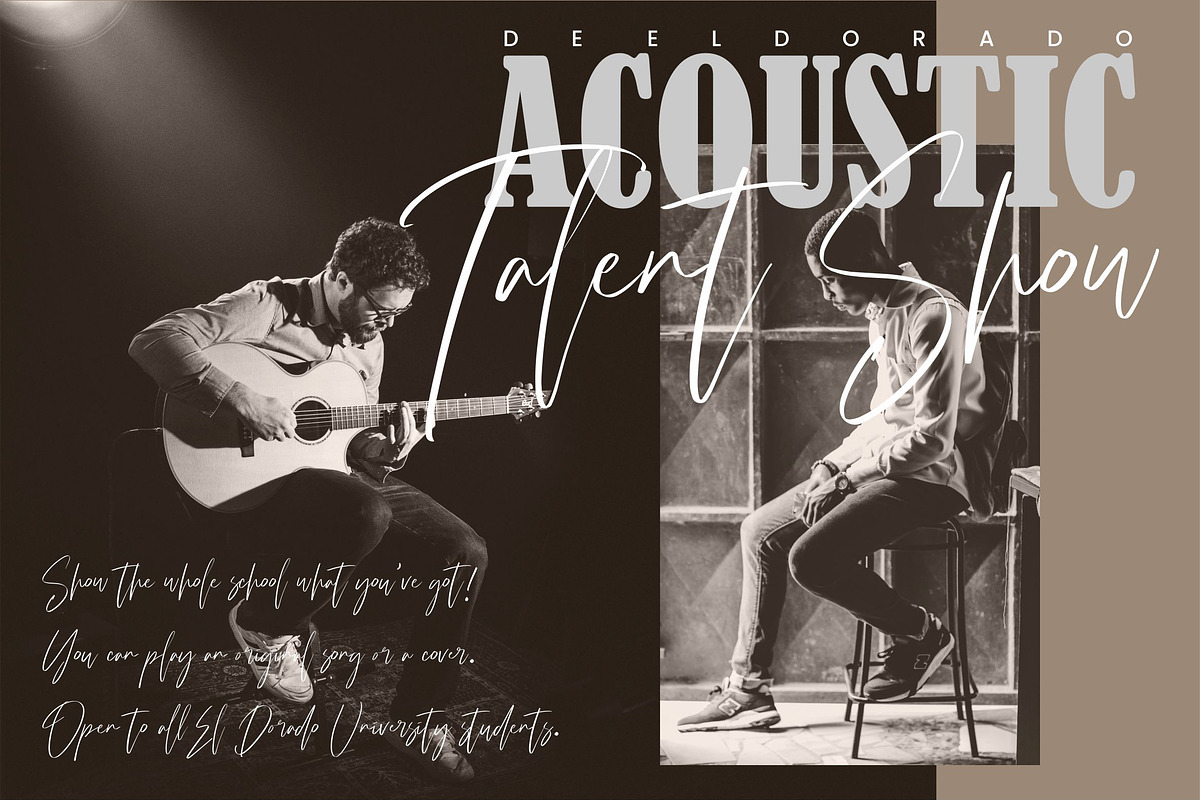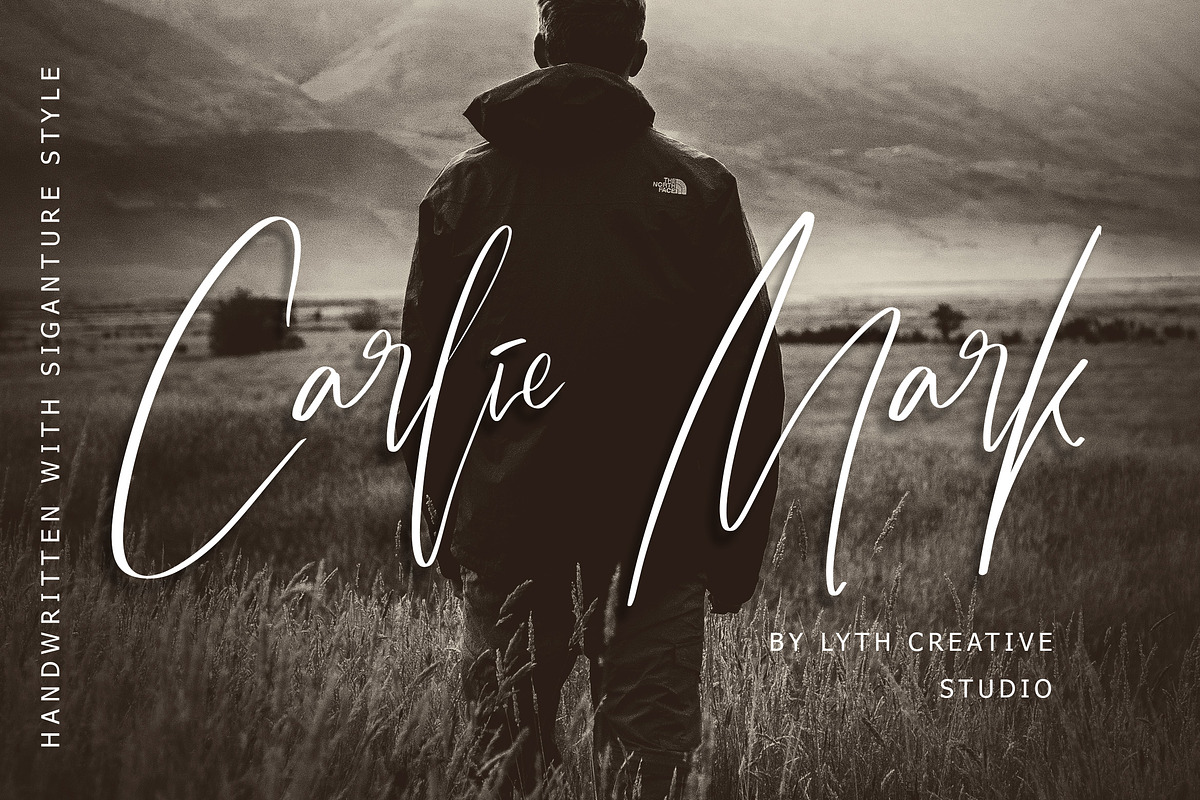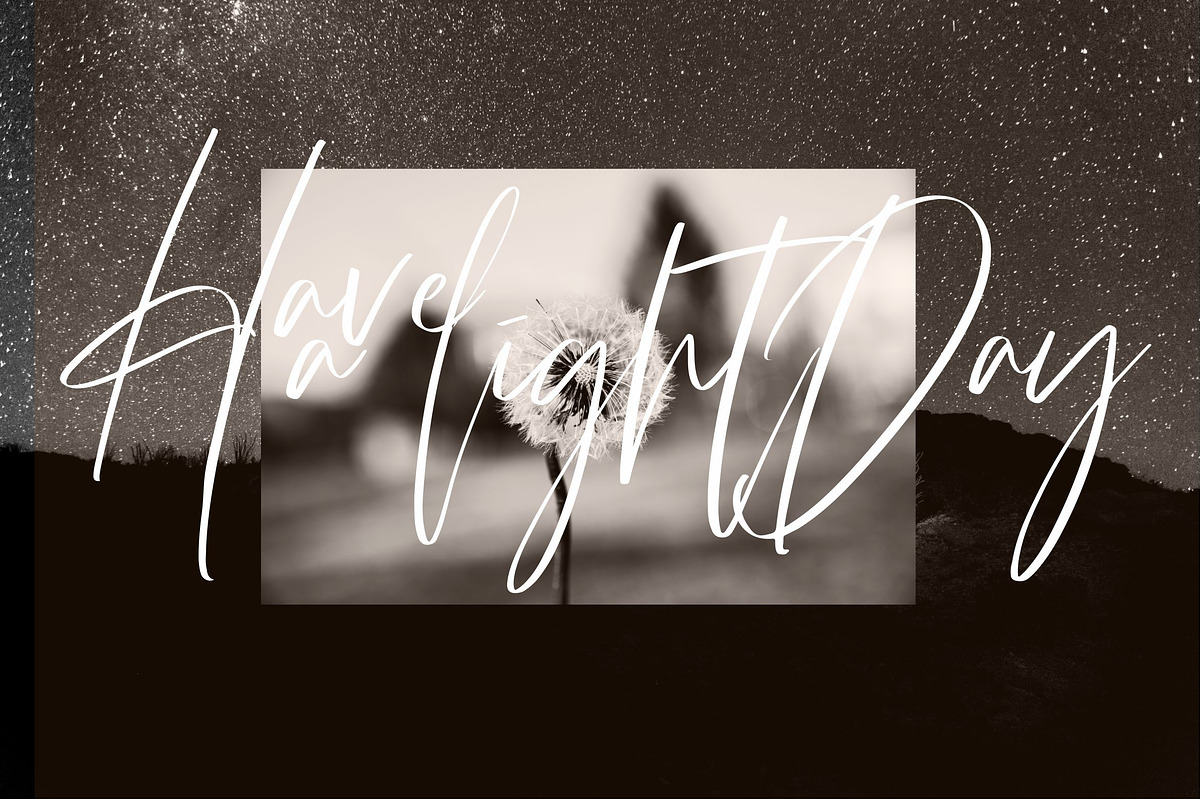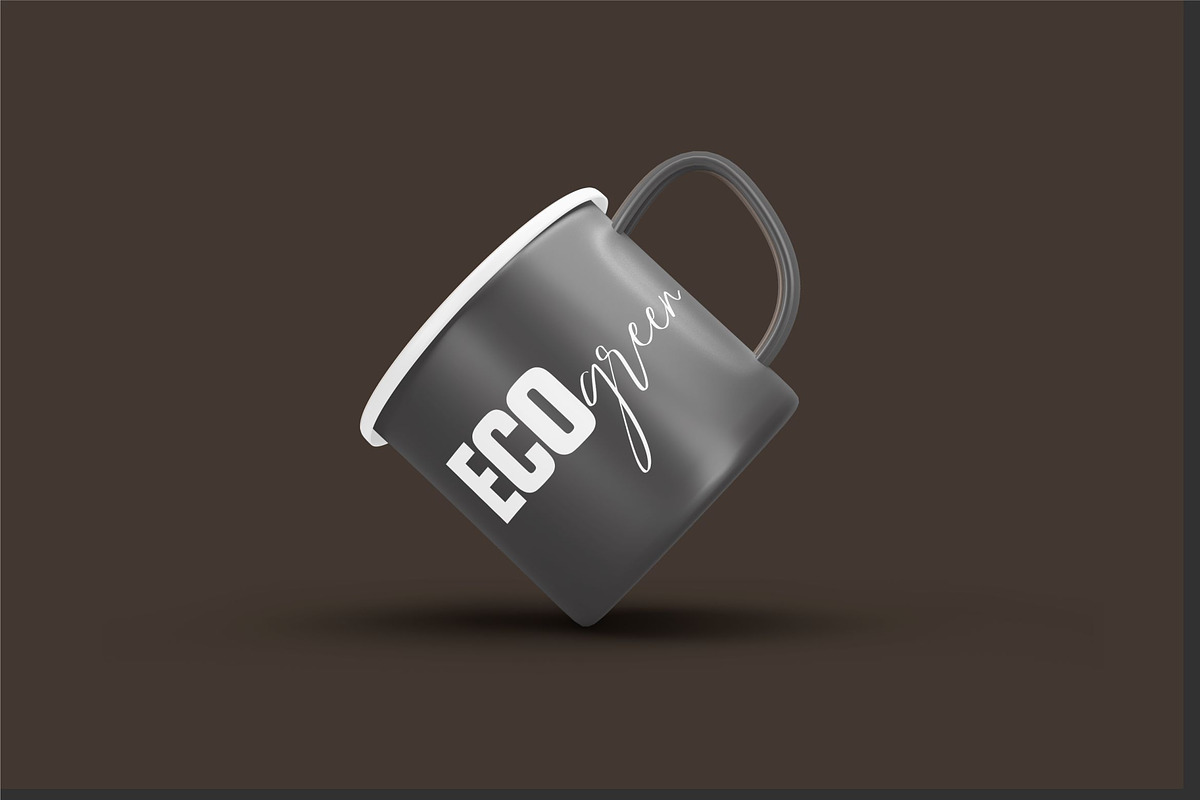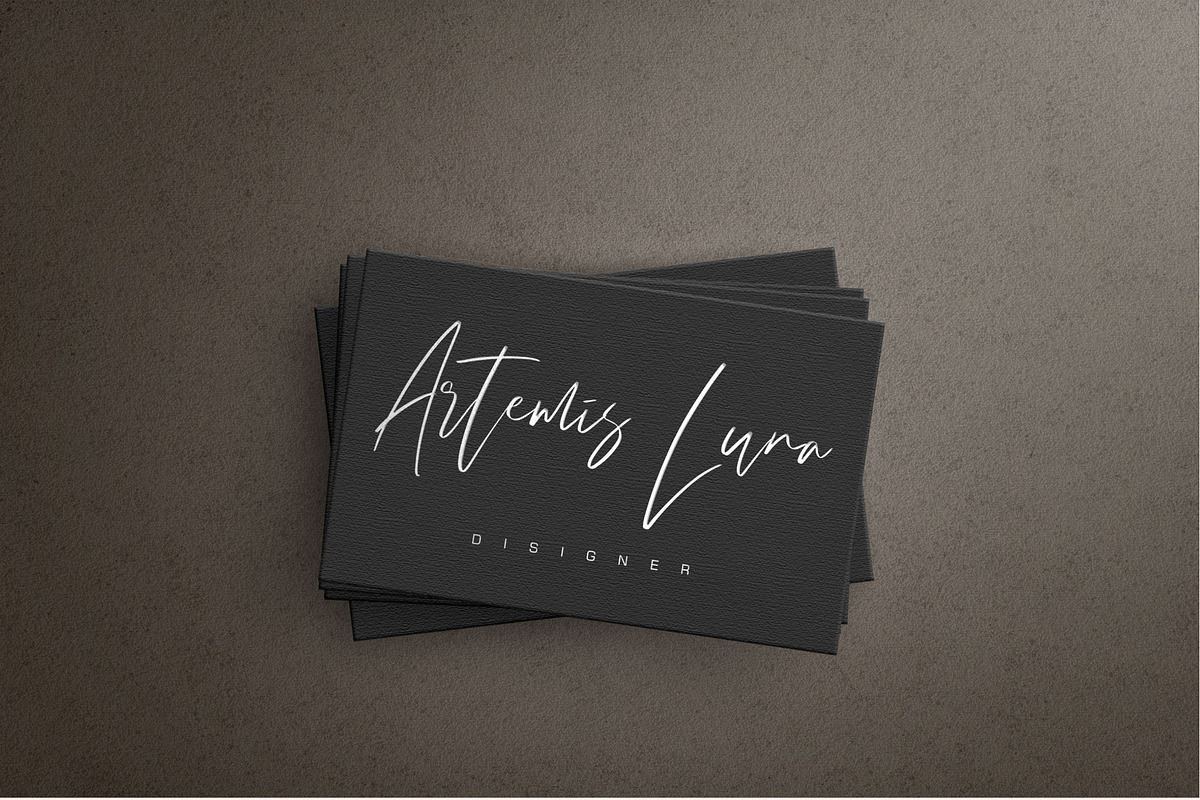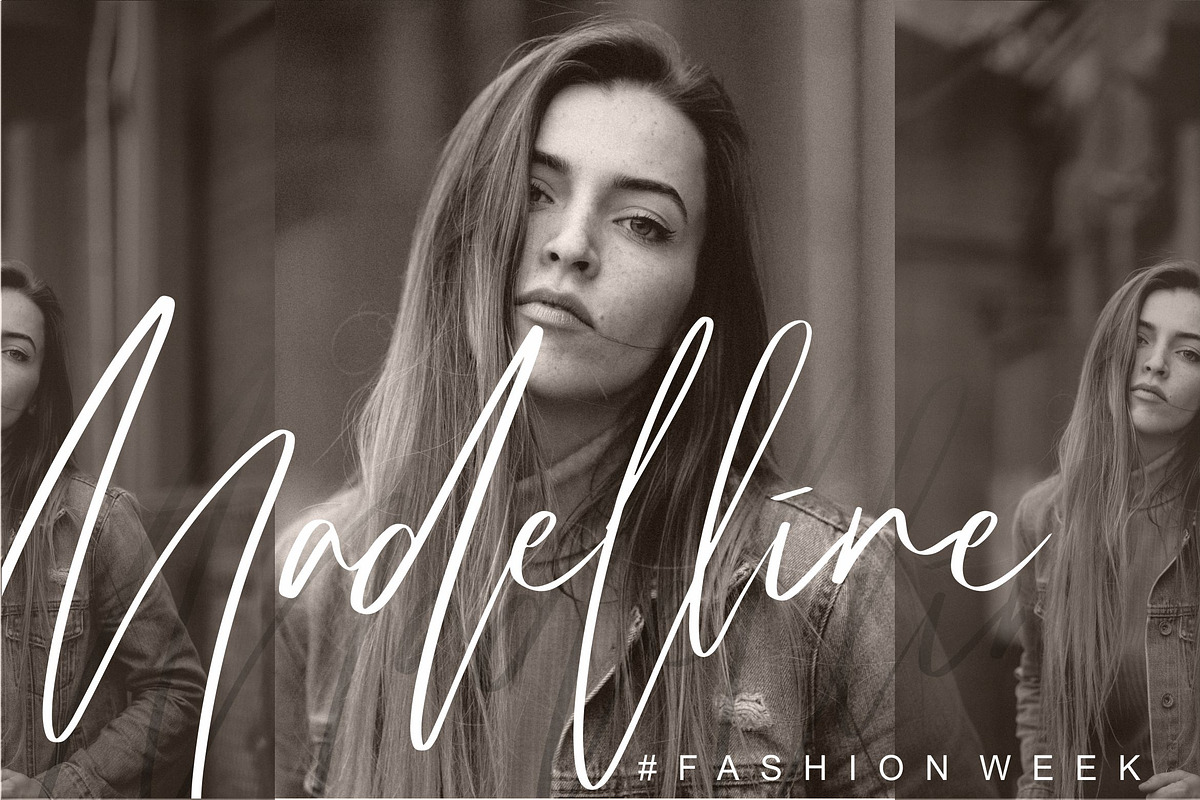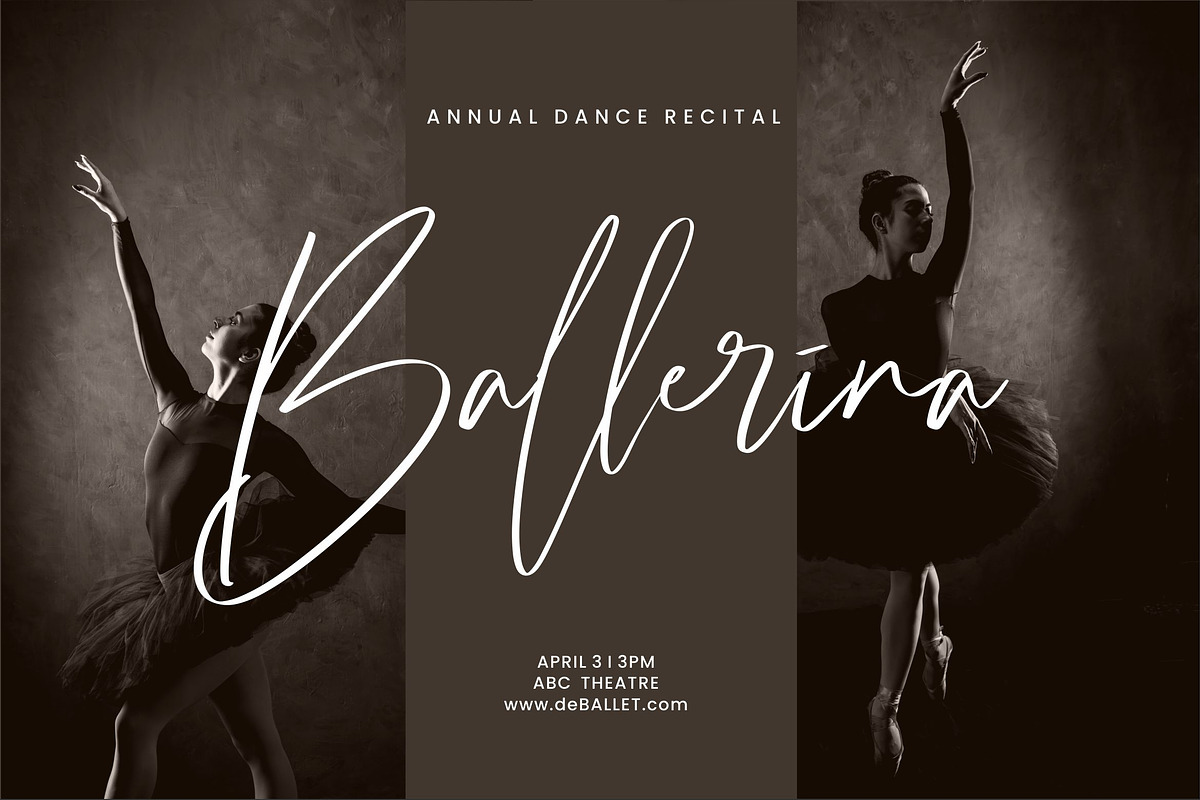
Carlie Mark Handwritten Font
Carlie Mark is Handwritten font with sigature style, this is the ideal font for adding an adventurous and authentic feel to your next design idea!
Carlie Mark is perfect for branding projects, logo, wedding designs, social media posts, advertisements, product packaging, product designs, label, photography, watermark, invitation, stationery and any projects.